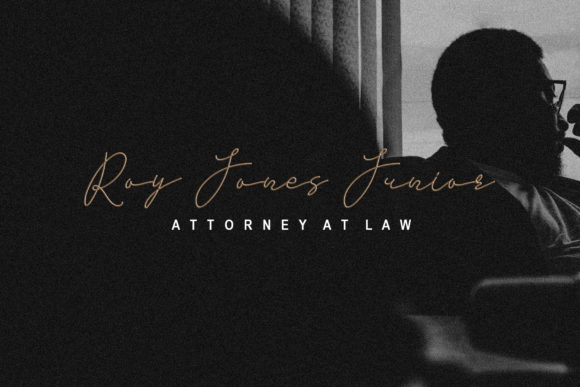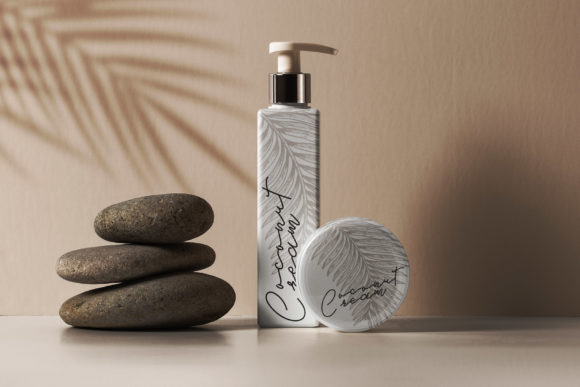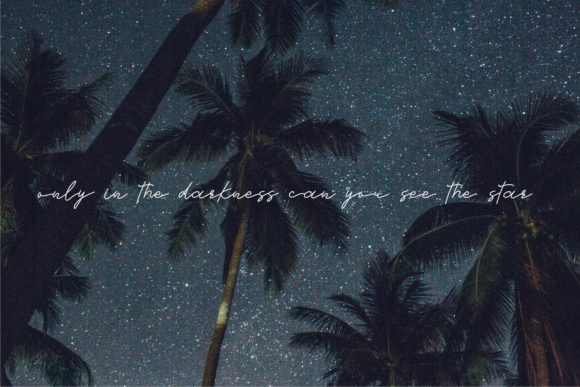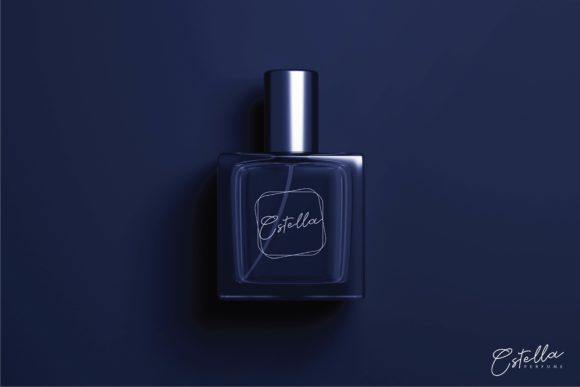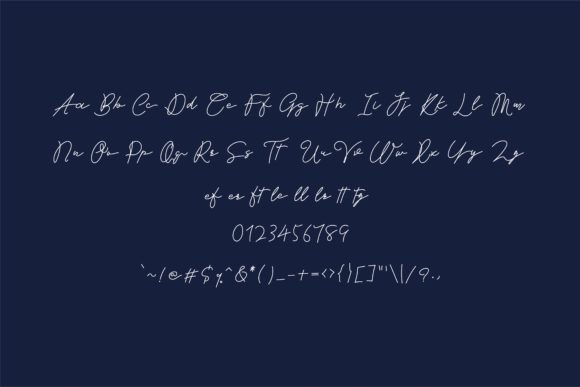
The Gotti Font: A Stylish Handwritten Delight for Designers
Have you ever been in the middle of a design project, and suddenly, you’re stuck on finding the perfect font? I recall a recent experience where a client requested a logo that was both elegant and playful. After scouring through numerous font options, I stumbled upon the Gotti font, and it instantly became the perfect fit. In this article, we’ll dive into the world of Gotti, exploring its unique features, and how to make the most of this lovely handwritten font.
A Personal Review: What I Love About Gotti
Gotti has quickly become one of my go-to fonts, and here’s why:
- ✨ Unique and Beautiful Touch: Every letter in Gotti has a distinct, hand-crafted feel that adds a personal touch to any design.
- ✅ Elegant and Playful: The font strikes a perfect balance between elegance and playfulness, making it suitable for a wide range of design projects.
- 💫 Eye-Catching Logos and Branding: Gotti is ideal for creating stunning logos, branding materials, and quotes that grab attention.
While Gotti is an excellent font, there are a few minor quirks to be aware of:
- ⚠️ Limited Use in Body Text: Due to its decorative nature, Gotti might not be the best choice for lengthy body text. It’s better suited for headings, titles, and short paragraphs.
- 🤔 Kerning and Spacing: As with any font, you might need to adjust the kerning and spacing to achieve optimal results, especially when using all caps or mixing with other fonts.
The Story Behind Gotti: Designer Inspiration
While the origins of Gotti are unclear, it’s likely that the font was inspired by classic handwritten scripts and the work of renowned type designers. The creator of Gotti aimed to craft a font that was both elegant and approachable, making it perfect for a wide range of design applications.
| Font Name | Gotti Font |
| Author | Fontana Studio |
| What type of projects is Gotti best suited for? | Gotti is ideal for creating eye-catching logos, branding materials, quotes, and titles. It’s perfect for designers, crafters, and creative hobbyists looking to add a personal touch to their work. |
| Is Gotti a difficult font to work with? | No, Gotti is relatively easy to work with, especially if you’re familiar with using fonts in your design software. Its clean and elegant design makes it a joy to work with. |